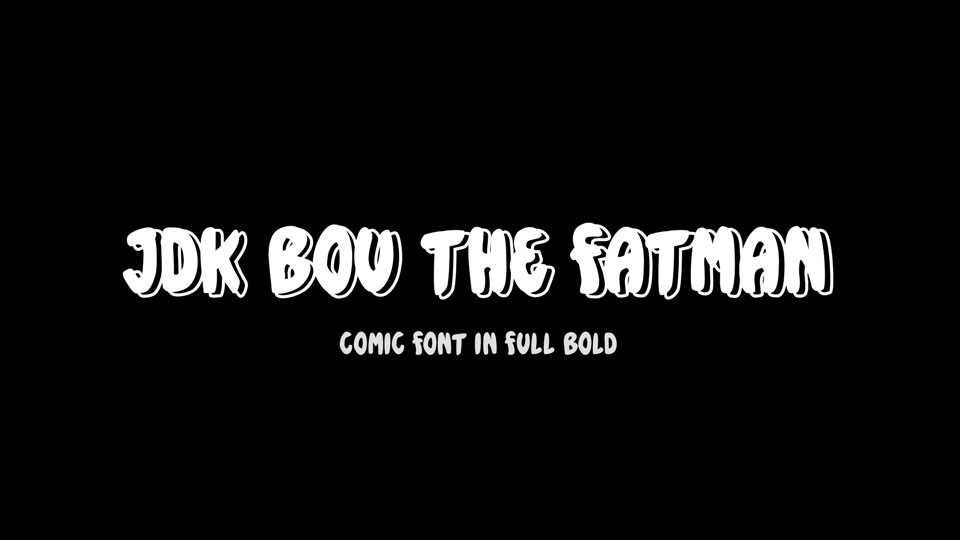
Download JDK Bou the Fatman font, a comic typeface in full bold. It contains only capital letters and is very suitable for retouching graphic inscriptions
Designer: Jakub D. Kočí